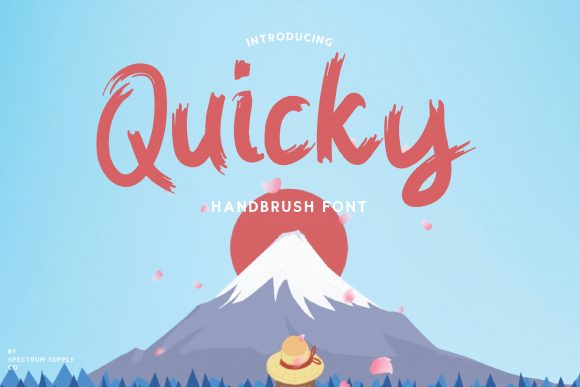
Prepare to be mesmerized by Quicky Font, a creation of spectrumsupply.co, a display font that will enchant you with its sugary sweetness and distinctive brush-pen strokes. This captivating font is a symphony of creativity, inviting you to unleash your imagination and paint the world with words.
As a display font, Quicky Font revels in the spotlight, demanding attention with its bold and playful personality. Its letters dance and twirl across any surface, commanding your gaze and leaving an unforgettable impression. Whether you're crafting logos, posters, or eye-catching headlines, Quicky Font is your ticket to visual brilliance.
But beneath its captivating looks lies a font of remarkable versatility. Quicky Font effortlessly adapts to a myriad of design styles, seamlessly blending with both classic and contemporary aesthetics. Its charm transcends genres, making it equally at home in whimsical invitations as it is in sleek, modern presentations.
With Quicky Font as your creative companion, the possibilities are endless. Transform your social media posts into visual masterpieces, let your business cards leave a lasting impact, or enchant your audience with presentations that captivate their senses. The world is your canvas, and Quicky Font is your brush, ready to paint a picture that will resonate with your audience.
So why settle for ordinary when you can embrace the extraordinary? Embrace Quicky Font, the font that ignites your creativity and sets your designs ablaze. Let its allure weave its magic into your projects, leaving your audience captivated and craving for more. Download Quicky Font today and embark on a journey of boundless creativity.